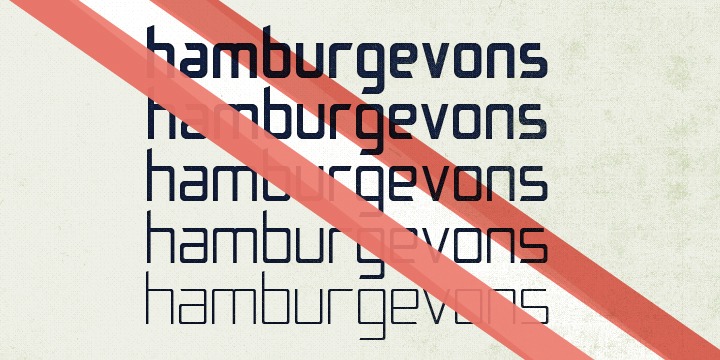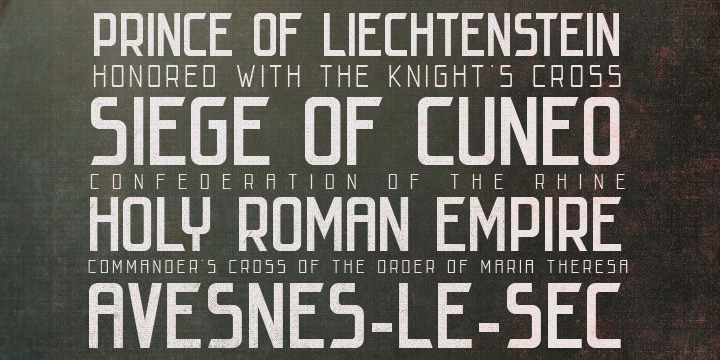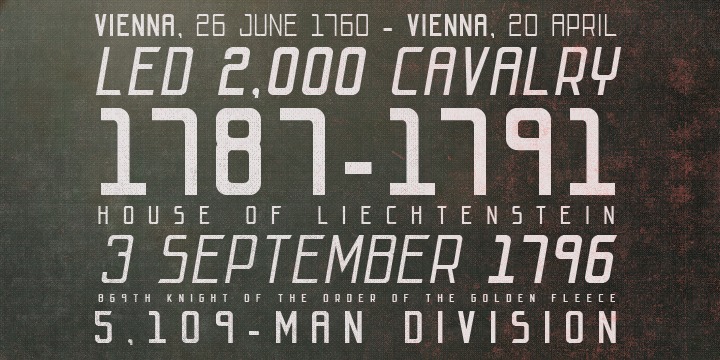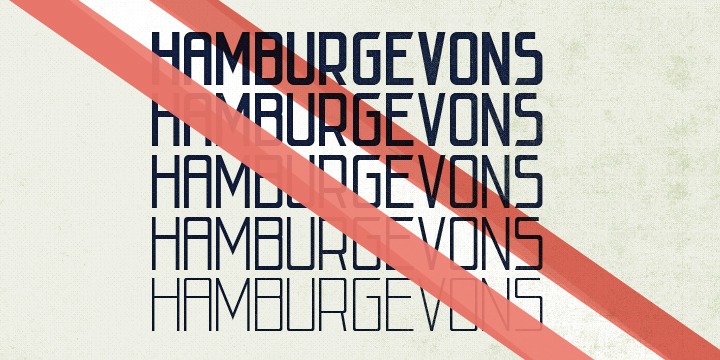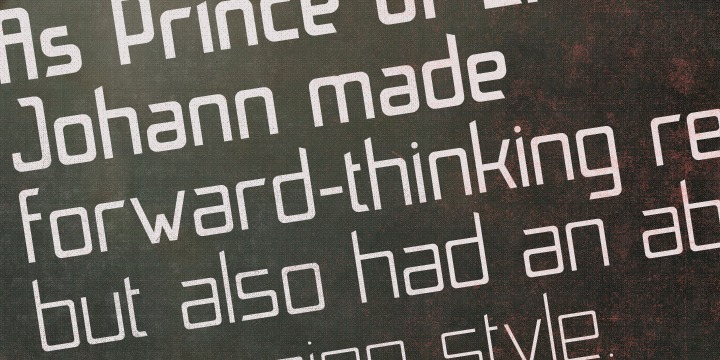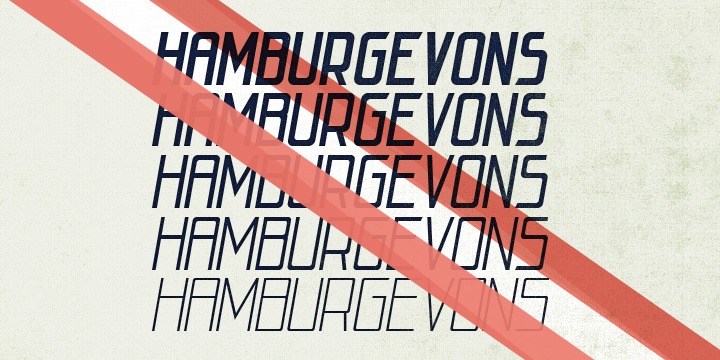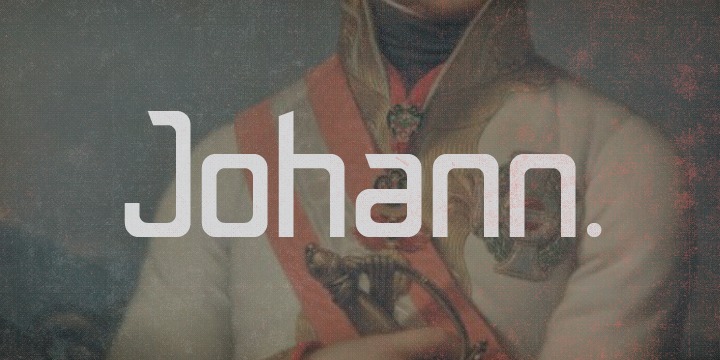
Johann Font Family
Johann is an elegant, geometric, san serif typeface who’s clean, simple structure and form create a versatile typeface that works effortlessly across print & digital applications.
Created in 2012 by NiceType, the Johann family consists of 5 weights, plus corresponding italic sets that all have their own individual strengths.
• Designers: Dan Jones
Johann Light
Johann Light Italic
Johann
Johann Italic
Johann Demi
Johann Demi Italic
Johann Bold
Johann Bold Italic
Johann Black
Johann Black Italic